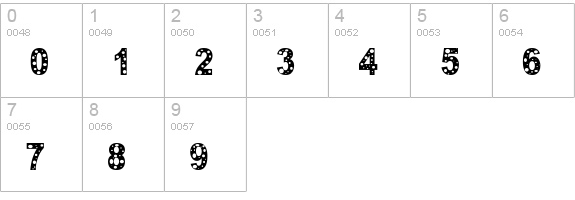
HOLE Font Details
Introducing HOLE font, a unique and modern typeface that brings a touch of edgy sophistication to any design project. This font features clean lines and bold lettering, making it perfect for headlines, logos, posters, and more. What sets HOLE font apart is its versatility - it can be used for both digital and print designs, adding a contemporary flair to any layout. The sleek and stylish aesthetic of this font is sure to make your text stand out and leave a lasting impression. Best of all, HOLE font is available for free download at FontsMarket.com, making it a fantastic choice for designers looking to add a touch of creativity to their projects without breaking the bank. Don't miss out on the opportunity to enhance your designs with this eye-catching and modern typeface. Download HOLE font today and start creating stunning visuals that are sure to impress!